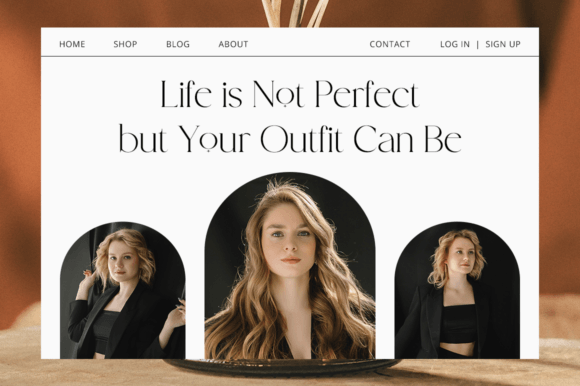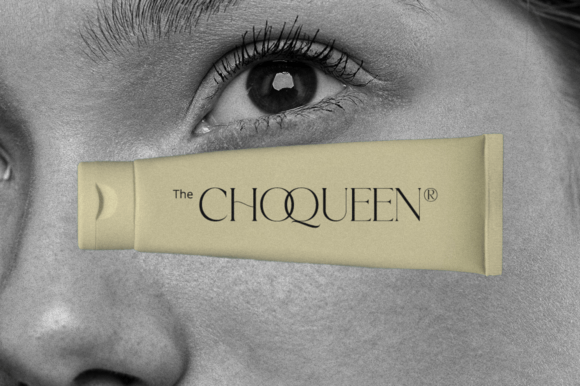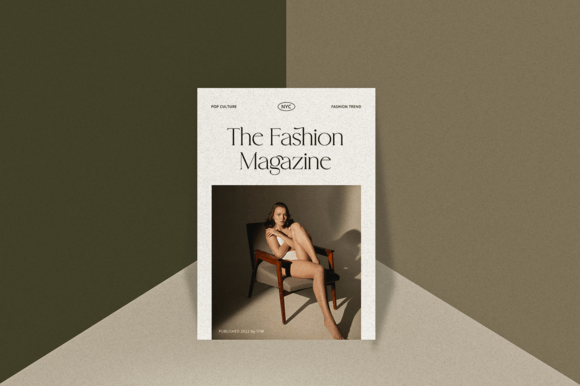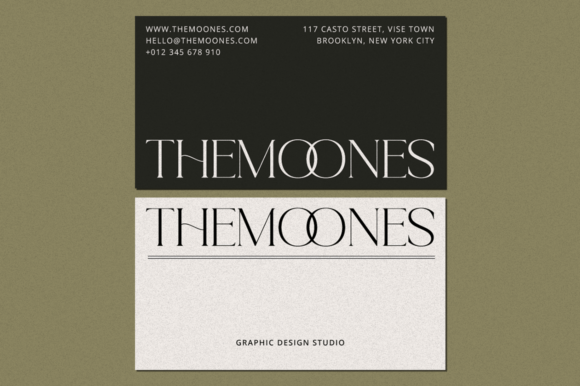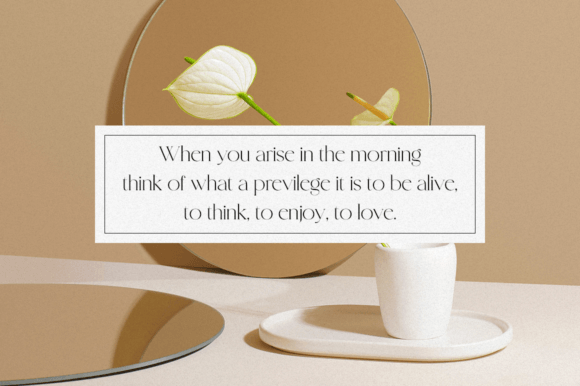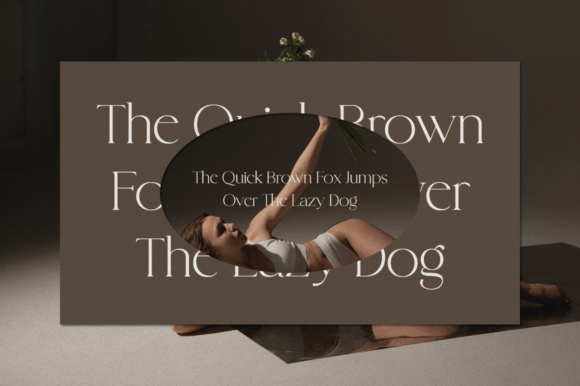
Introduction to Magashine Font
You’ve spent hours poring over design inspiration, searching for the perfect font to elevate your creative project. And then, it hits you – the perfect combination of elegance and authenticity that brings your vision to life. For designers, finding that special font can be a game-changer. It’s the difference between a good design and a truly exceptional one. That’s where the Magashine Font comes in – a masterfully designed serif font that’s sure to become a true favorite.
With its high-quality design and versatility, the Magashine Font is an invaluable resource for designers looking to add a touch of sophistication to their work. Whether you’re working on a logo, brochure, or website, this font has the potential to take your creative ideas to the next level. And the best part? It’s available for free download, making it an accessible design resource for designers of all levels.
Key Features of Magashine Font
- High-quality design: Magashine Font is a premium font perfect for creative projects requiring a professional touch.
- Transparent background: This font features a transparent background, making it ideal for overlaying text on images or videos.
- Large character set: With a wide range of characters, including letters, numbers, and symbols, Magashine Font is suitable for various design needs.
- High-resolution design: This font is designed at 300 DPI, ensuring crisp and clear text even at large sizes.
Honest Review: Magashine Font
As a designer, I’ve had the opportunity to work with a wide range of fonts, and I’m always on the lookout for high-quality design resources that can elevate my creative projects. The Magashine Font is one such resource that I’ve had the chance to try out.
What works well: ✨ The Magashine Font has a unique and stylish aesthetic that can add a touch of sophistication to any design. The font is highly customizable, making it easy to adjust to different design needs. Additionally, the transparent background option allows for seamless integration with other design elements.
- High-quality design: The Magashine Font is well-crafted and visually appealing, making it a great addition to any design project.
- Design versatility: The Magashine Font can be used for a variety of creative projects, from branding to typography.
However, I did encounter some limitations: ⚠️ The font is not as comprehensive as some other font families, with limited character sets and styles. Additionally, the font may not be suitable for complex or large-scale designs.
Overall impression: The Magashine Font is a great addition to any designer’s toolkit, offering a unique and stylish aesthetic that can add depth to creative projects. While it has some limitations, its high-quality design and free download make it a worthwhile resource to explore.
Tips for Getting the Most Out of Magashine Font
For the best results, use Magashine Font in combination with other high-quality design elements, such as images and graphics. Experiment with different font sizes, colors, and arrangements to create a unique and visually appealing design. You can also use Magashine Font in conjunction with other design resources, such as templates and stock photos, to create a cohesive and professional-looking design.
Magashine Font is perfect for a variety of creative projects, including social media graphics, flyers, brochures, logos, and branding materials. Its transparent background and high-quality design make it an excellent choice for designers looking to create unique and eye-catching designs. With its free download, Magashine Font is an excellent design resource for anyone looking to elevate their creative projects.